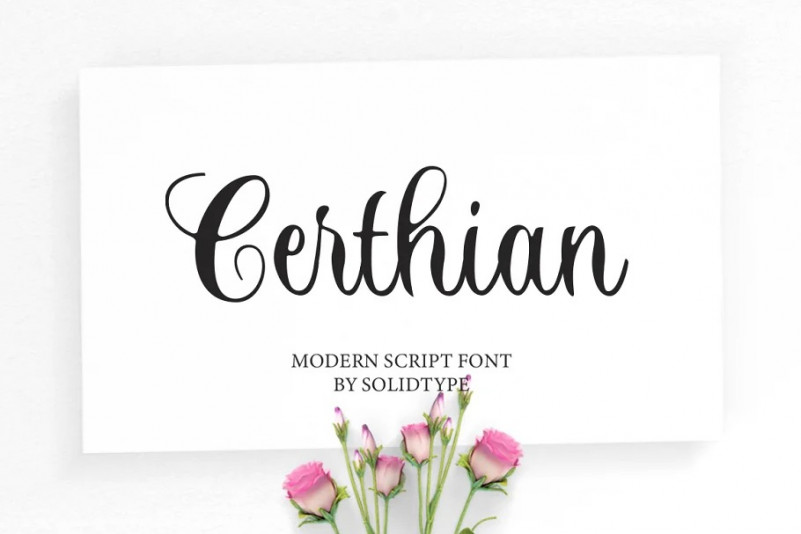
Certhian Font
Certhian Script Font, A new modern Script font, with stylish and lovely. It comes with a handy set of opentype stylistic, use the beautiful ligatures, alternates and swashes. You need a program that supports OpenType features such as Adobe Illustrator CS, Adobe Photoshop CC, Adobe Indesign, Microsoft Word 2010. It is perfect for logo, greetings, branding, quotes, prints, invitations and crafting. All lowercase letters include alternates, beginning & end swashes, that makes the font look fabulous!